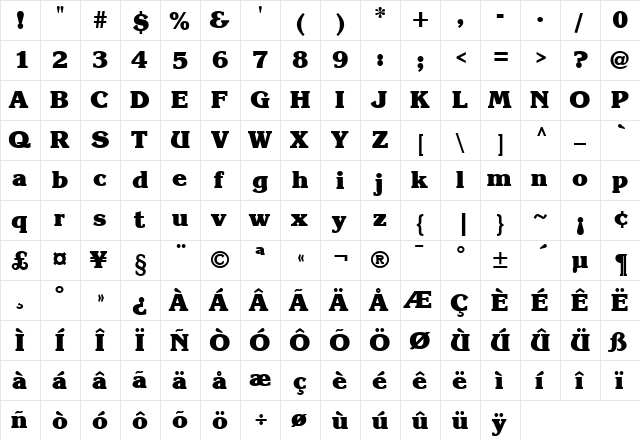
KarlaJohnson8 HeavySH
KarlaJohnson8 takes a measured approach to typography — its balanced proportions and neutral character make it a reliable workhorse for both digital and print work.